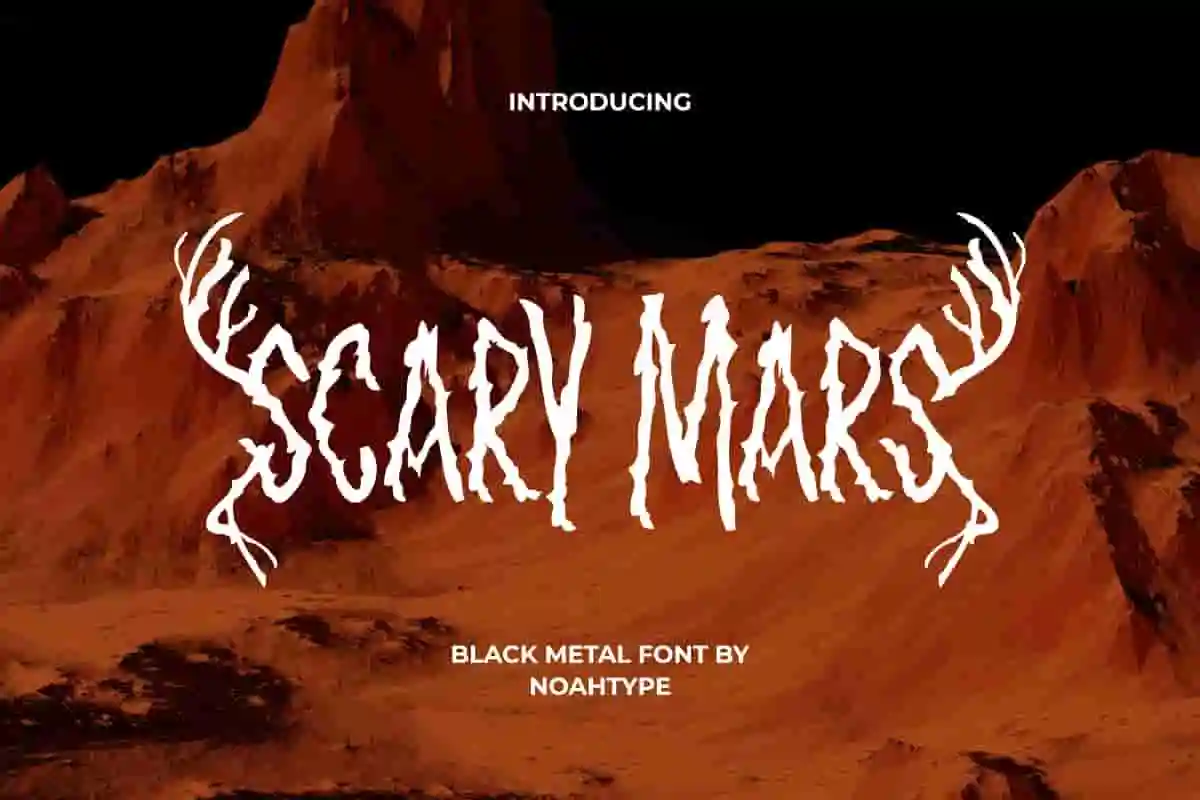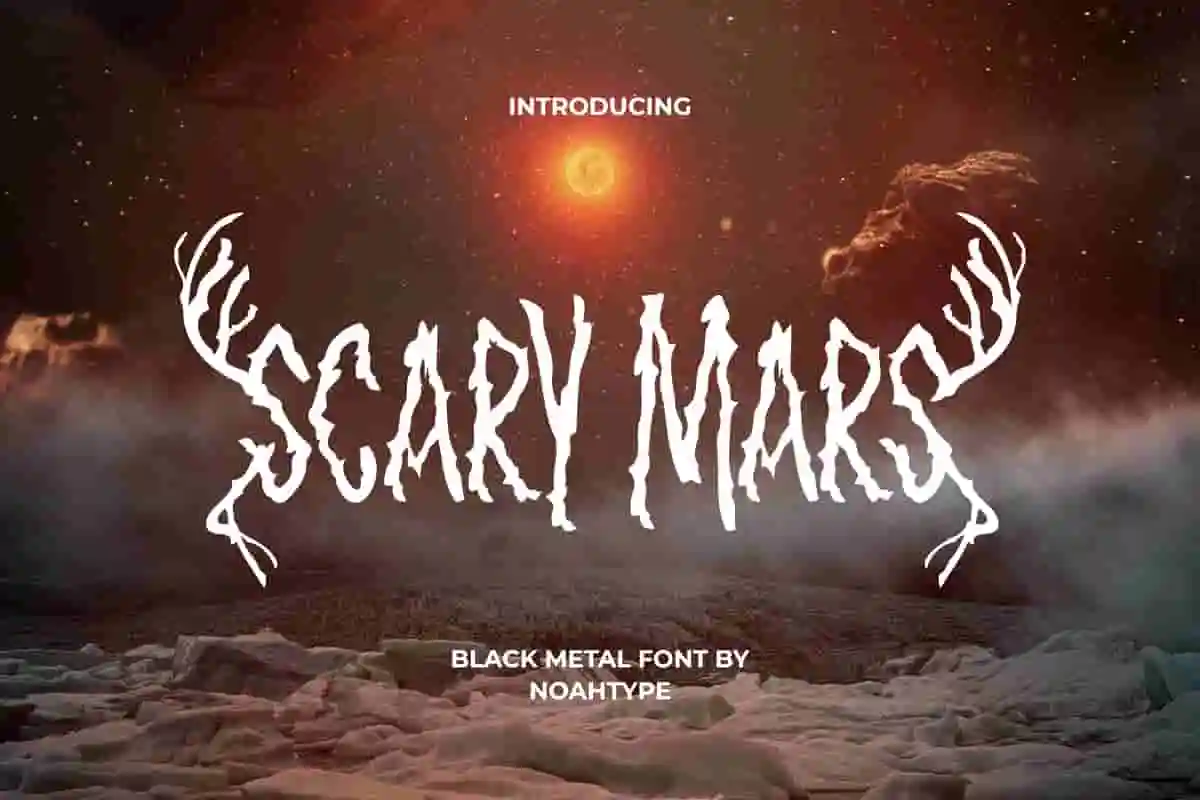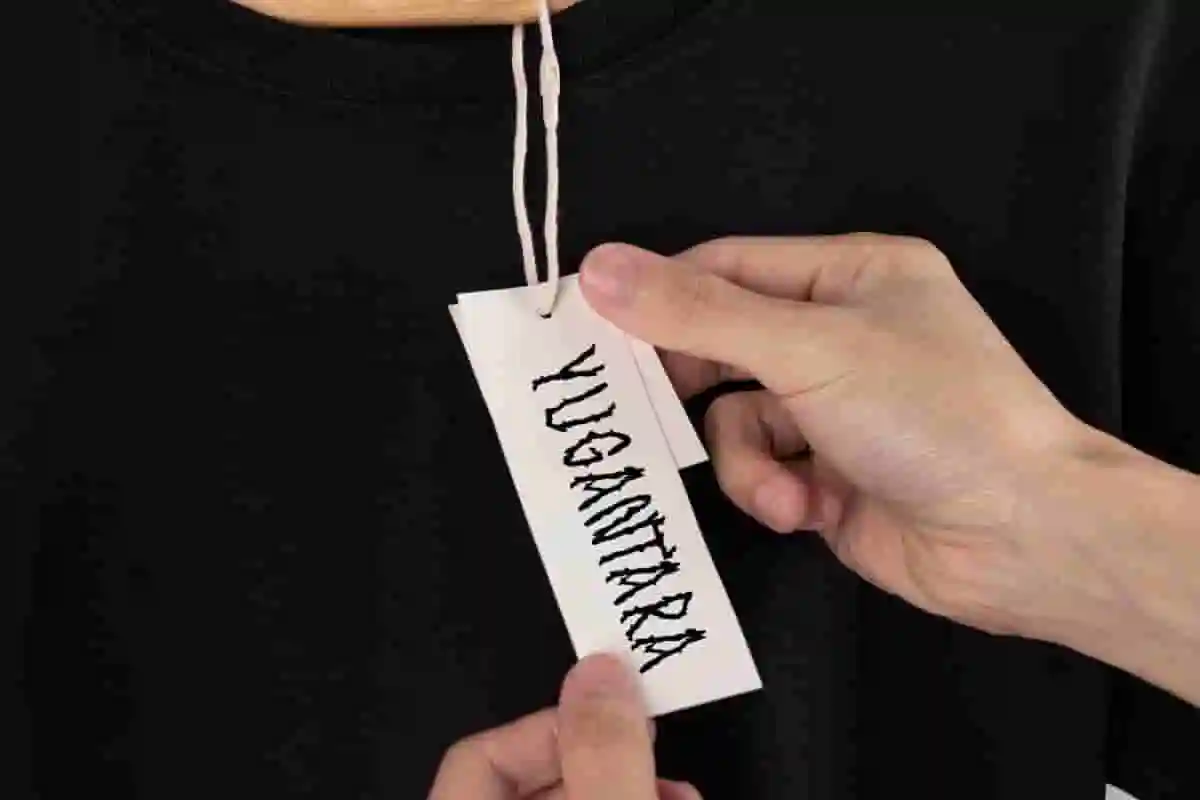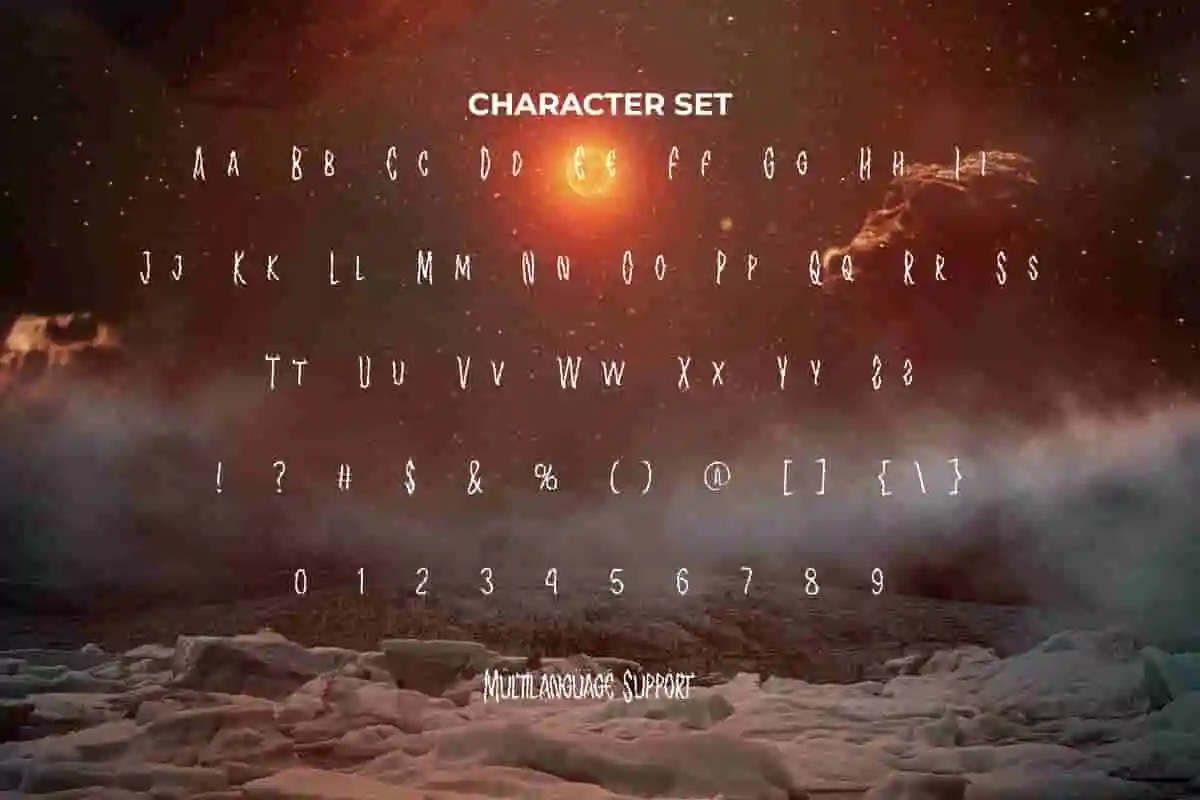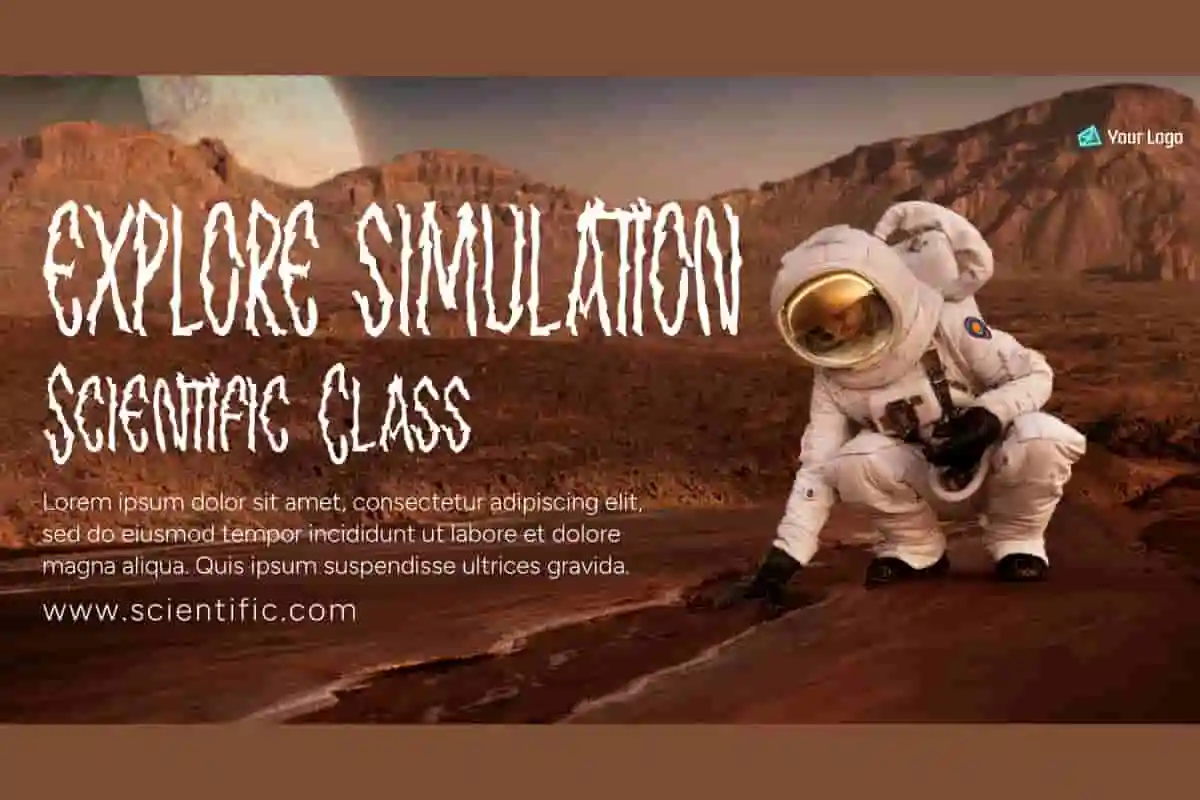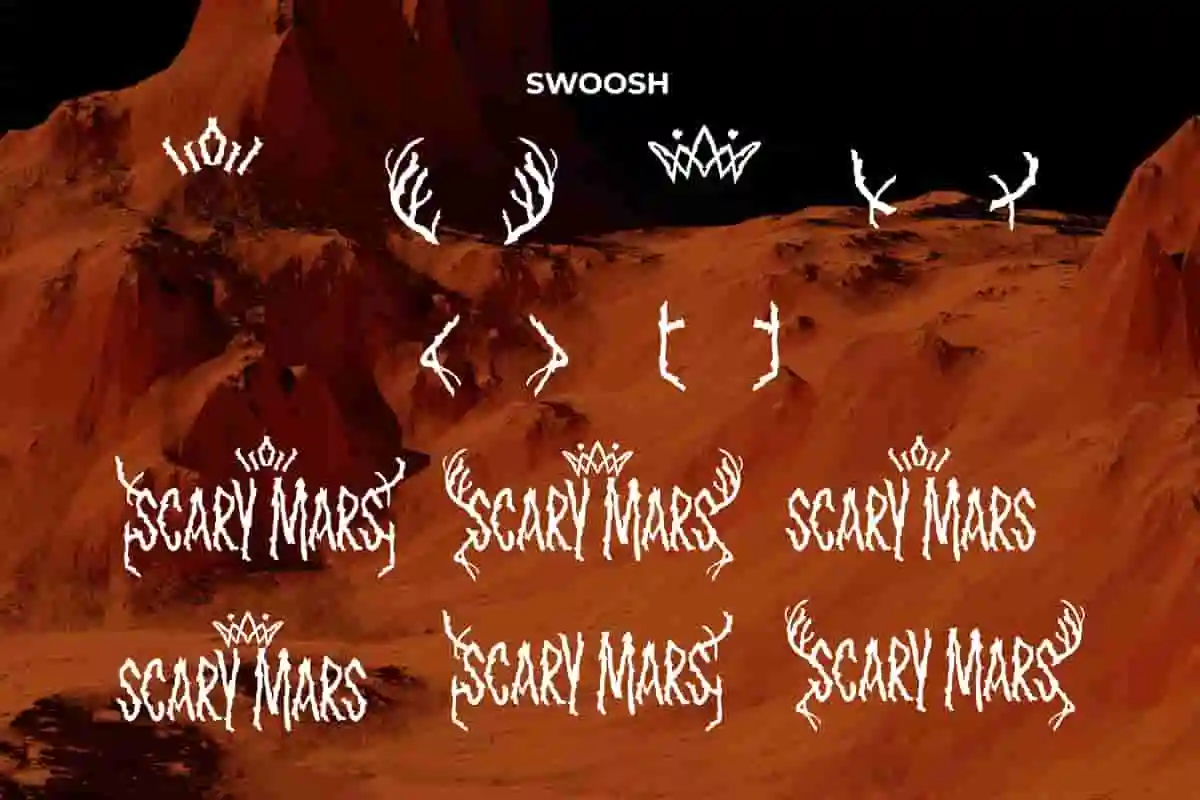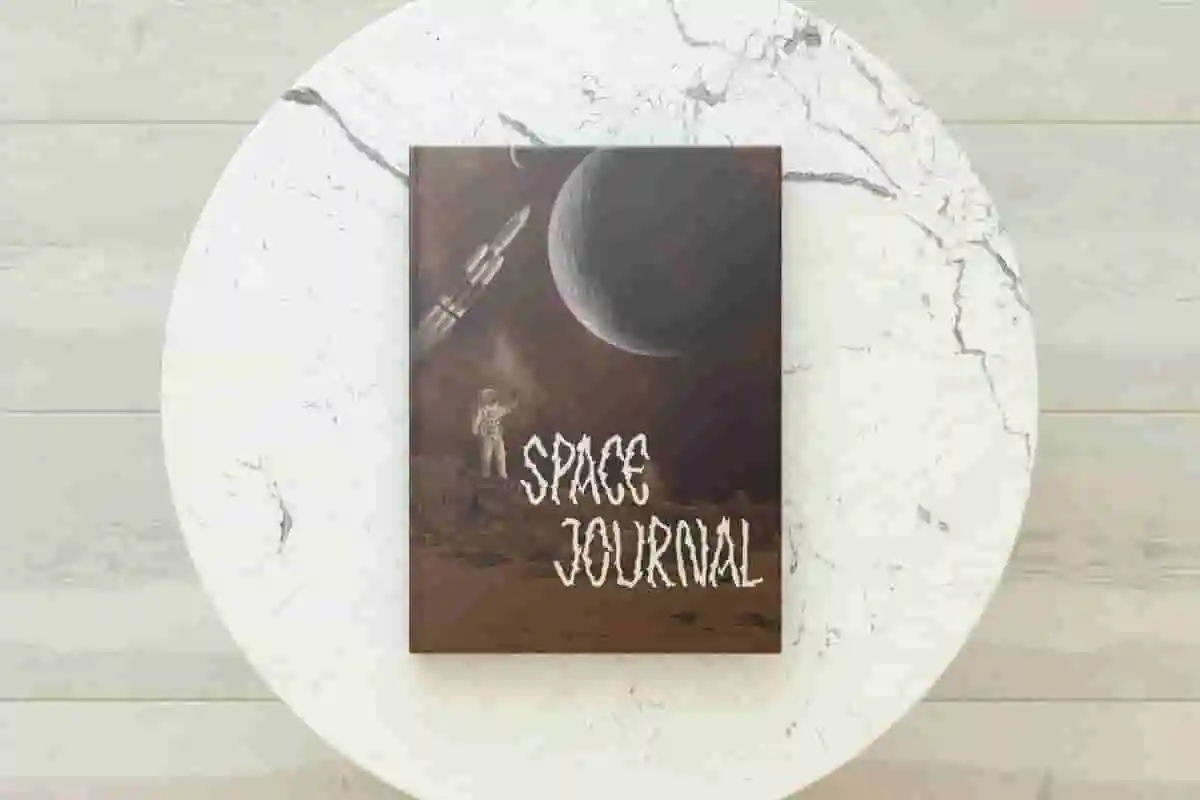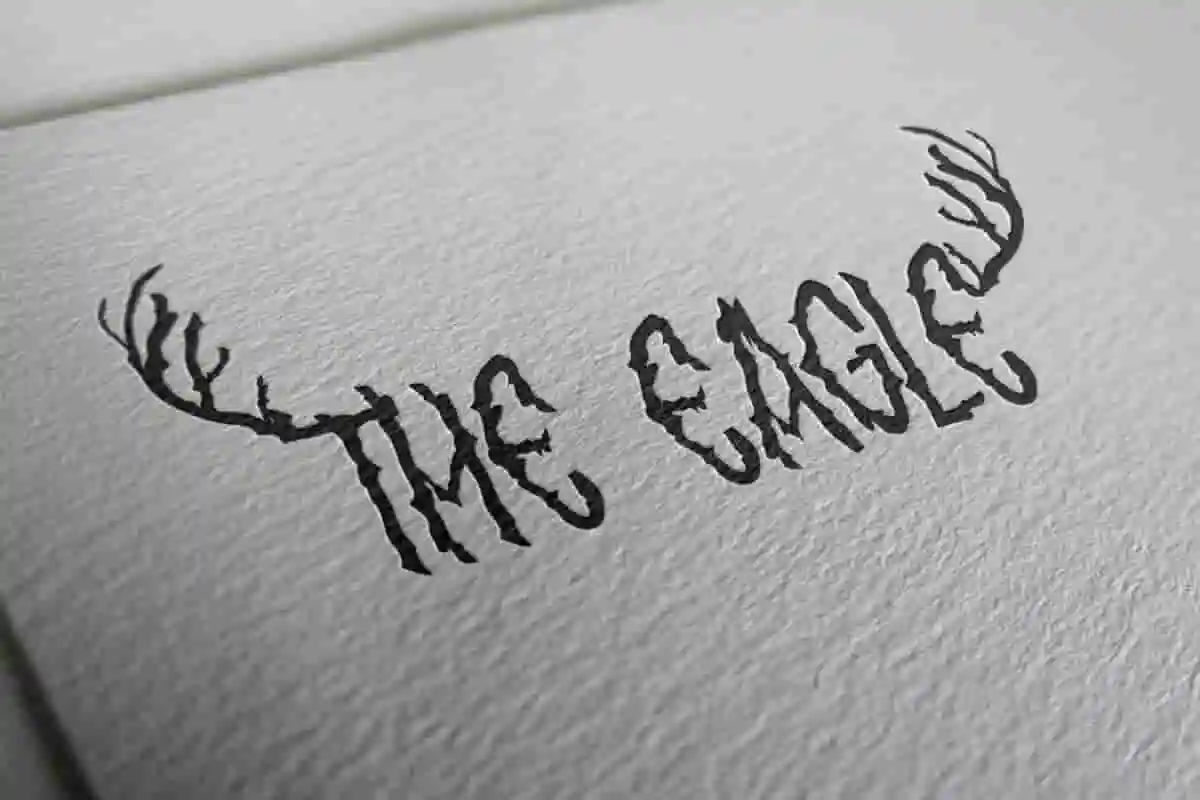
Scary Mars Font is an artistic hardcore grunge display font with exclusive style. This font is made with a black metal concept to support the appearance of your design to be very cool. It will be perfect for any designs, such as brand image, cover, custom design, invitation, label, marketing material, menu, poster, product packaging, quote, signage, stationery, web, and many more!
Scary Mars Font includes full set of ALL CAPS for Uppercase and Lowercase Basic Characters, Numerals, Punctuation, and Symbol. The Swoosh characters of this font will give amazing touch and also a perfect choice for many industries, such as accessories, advertising, art, café, event or festival, fashion, game, movie, printing, publishing, etc.